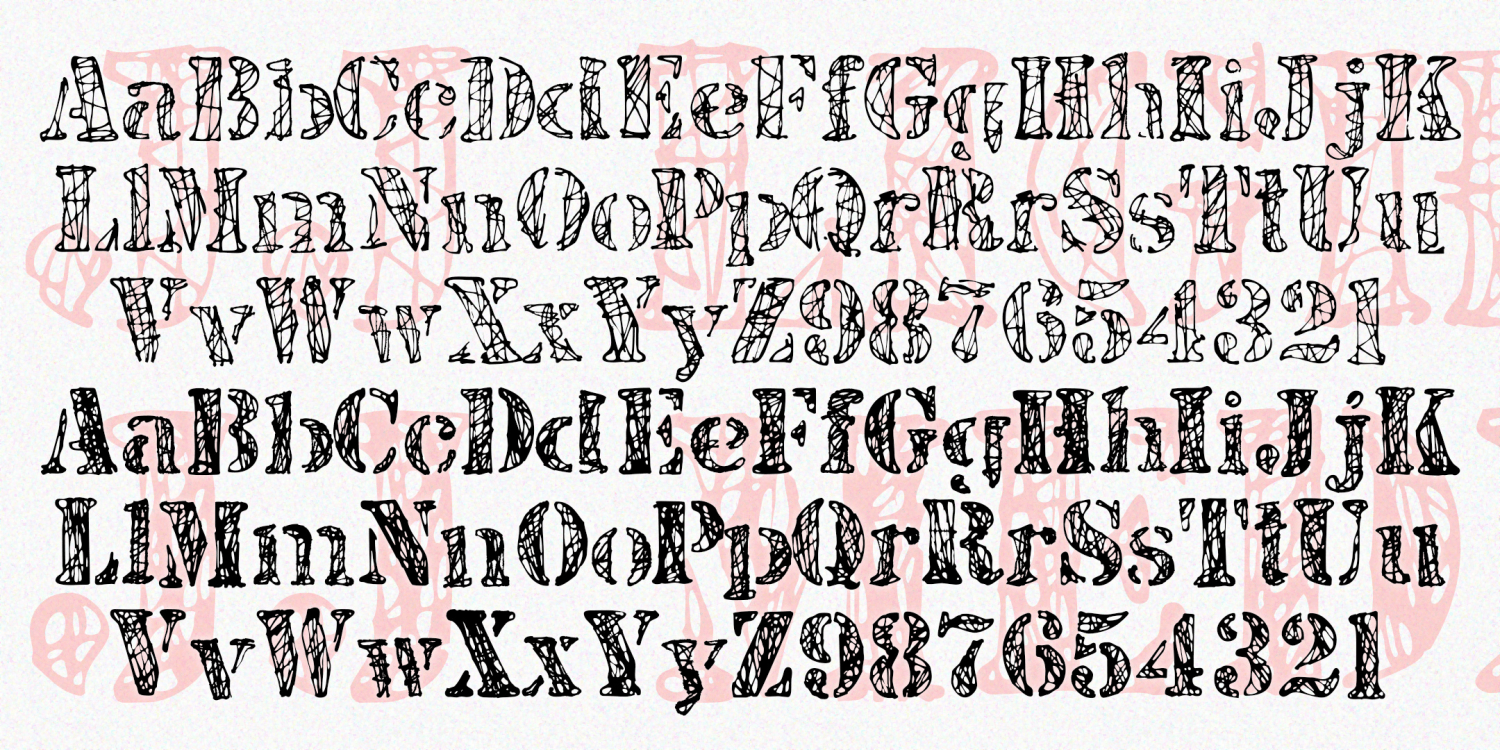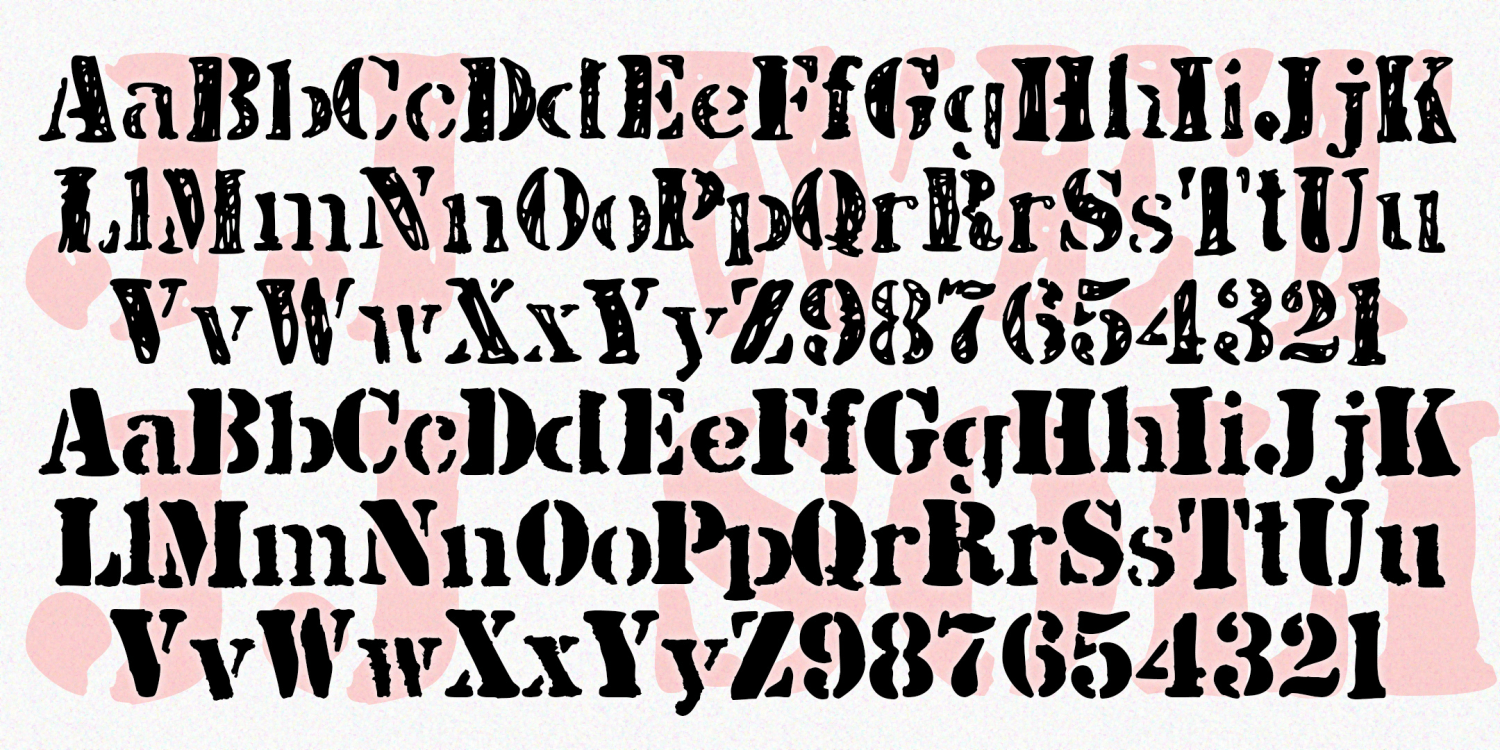
JJ Stencil
JJ STENCIL was inspired by the work of the great American Pop artist Jasper Johns. Perhaps best known for his flag and target series, Johns has also used the “found” look of stencils in many drawings and painting.
My fonts were not made directly from Johns’ work, but from scans of my own similar stencil scratchings. There are four complete fonts—Light, Medium, Wet, and Solid, designed to be mixed or layered or both.